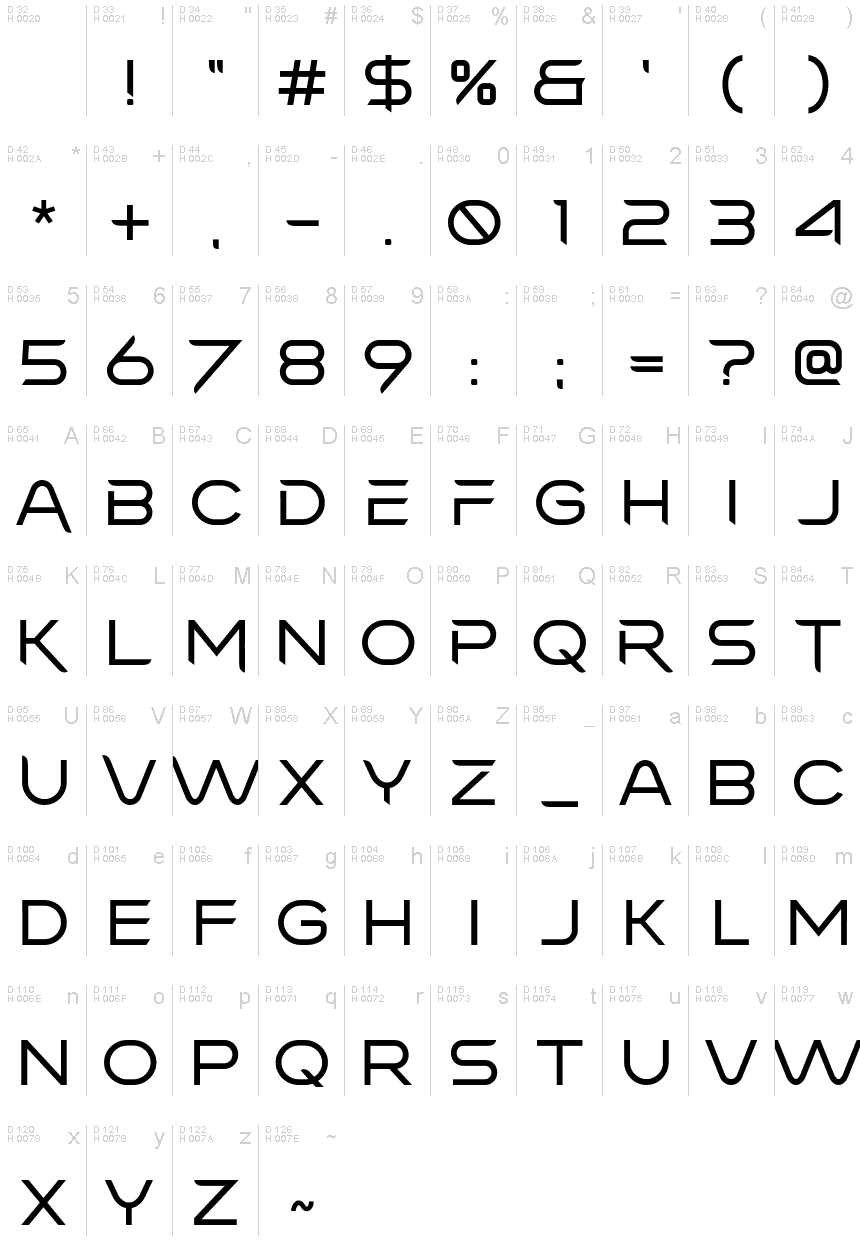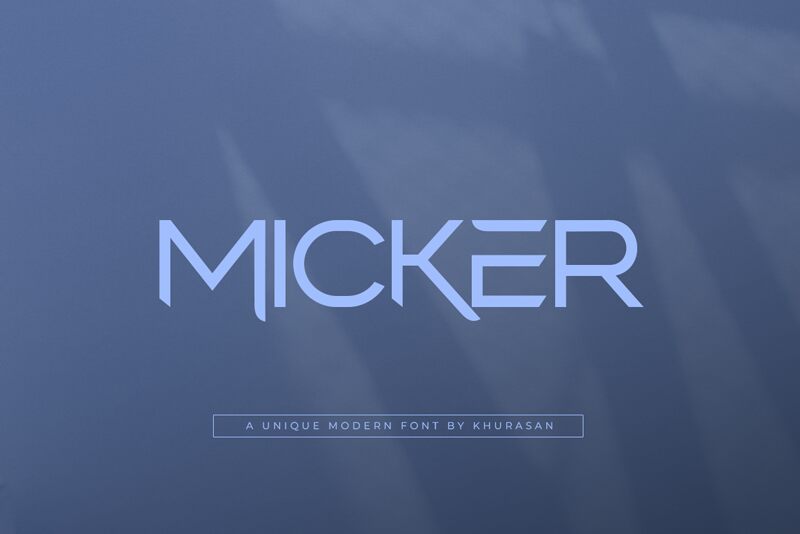
Micker
Micker, the semi-light font designed by Khurasan, brings an exquisite touch to your projects. Its expanded width adds a touch of elegance and sophistication, making it ideal for fashion magazines, luxury brand logos, or modern art websites. This font exudes creativity and diversity, perfectly suitable for architectural portfolios or contemporary interior design blogs. Micker's semi-light typeface strikes the perfect balance between readability and stylishness, making it an excellent choice for wedding invitations or high-end restaurant menus. Elevate your designs with Micker – where refinement meets versatility.